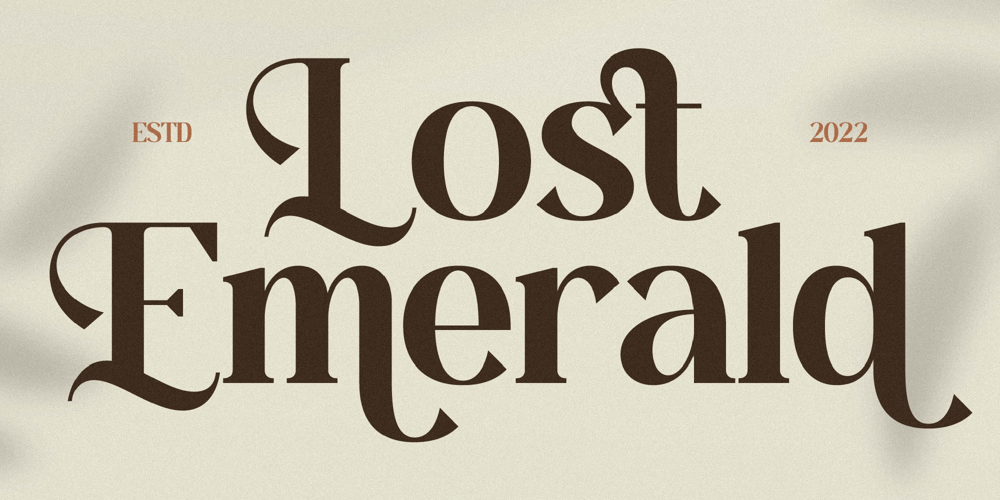
Lost Emerald Font Family was designed by Heru Utama Putra and published by Letterena Studios. Lost Emerald contains 2 styles and family package options. Lost Emerald is a stylish and classy serif font. It has beautiful and well-balanced characters and as a result, it matches a wide pool of designs. Add it to your most creative ideas and notice how it makes them come alive!This font is PUA encoded which means you can access all glyphs and swashes with ease!